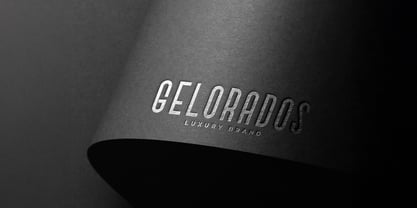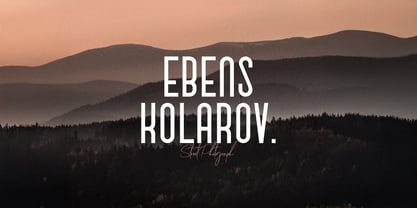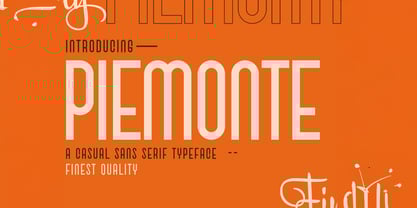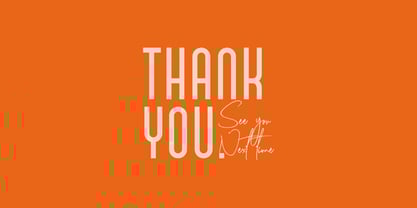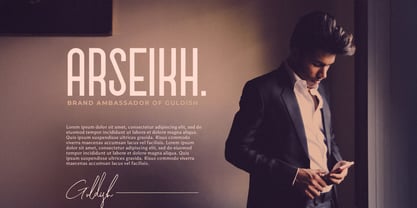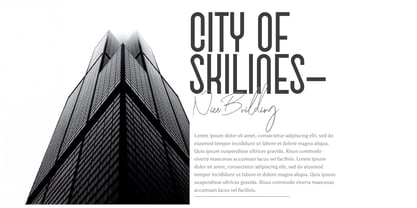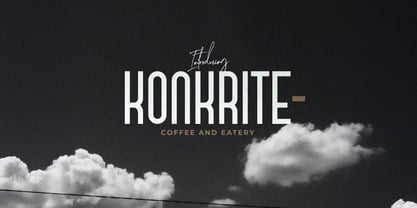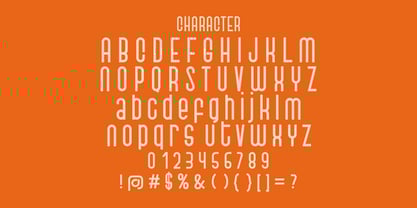
Die Schriftfamilie Piemonte wurde von Virgiawan Listanto entworfen und von Stringlabs Creative Studio veröffentlicht. Piemonte enthält 1 Stile. Mehr über diese Familie
Piemonte is a modern and relaxed sans serif font that brings a touch of casual elegance to any design. With its clean, rounded letterforms and friendly vibe, Piemonte is perfect for projects that need a balance between approachability and sophistication. Whether for lifestyle branding, digital designs, or casual editorial work, this font offers versatility and charm with a laid-back yet polished feel.
Designer: Virgiawan Listanto
Foundry: Stringlabs Creative Studio
Piemonte